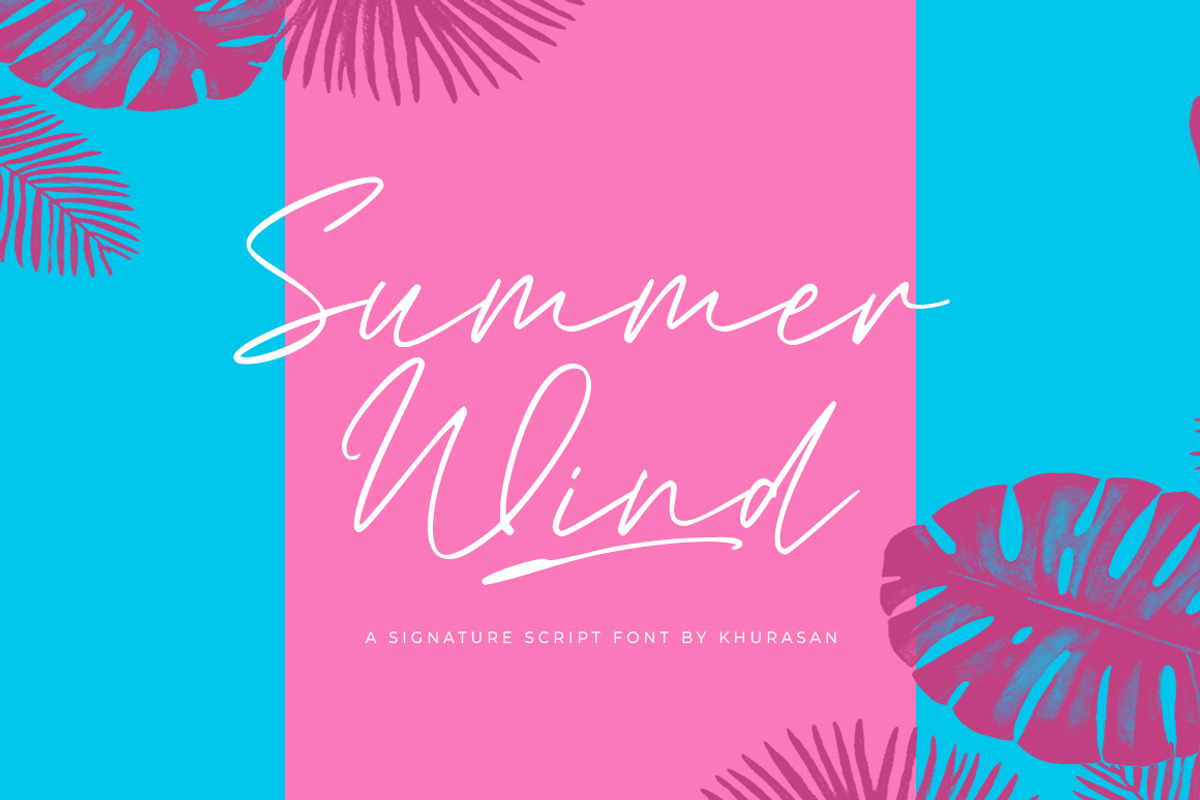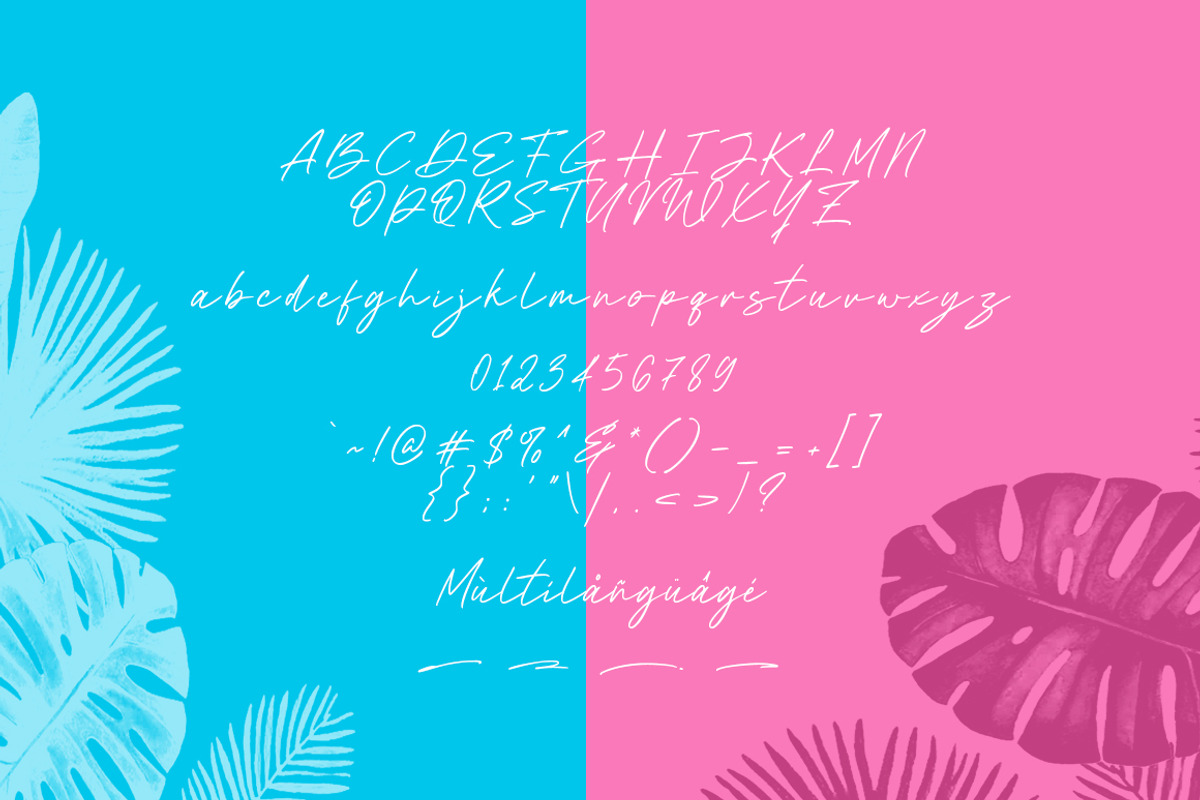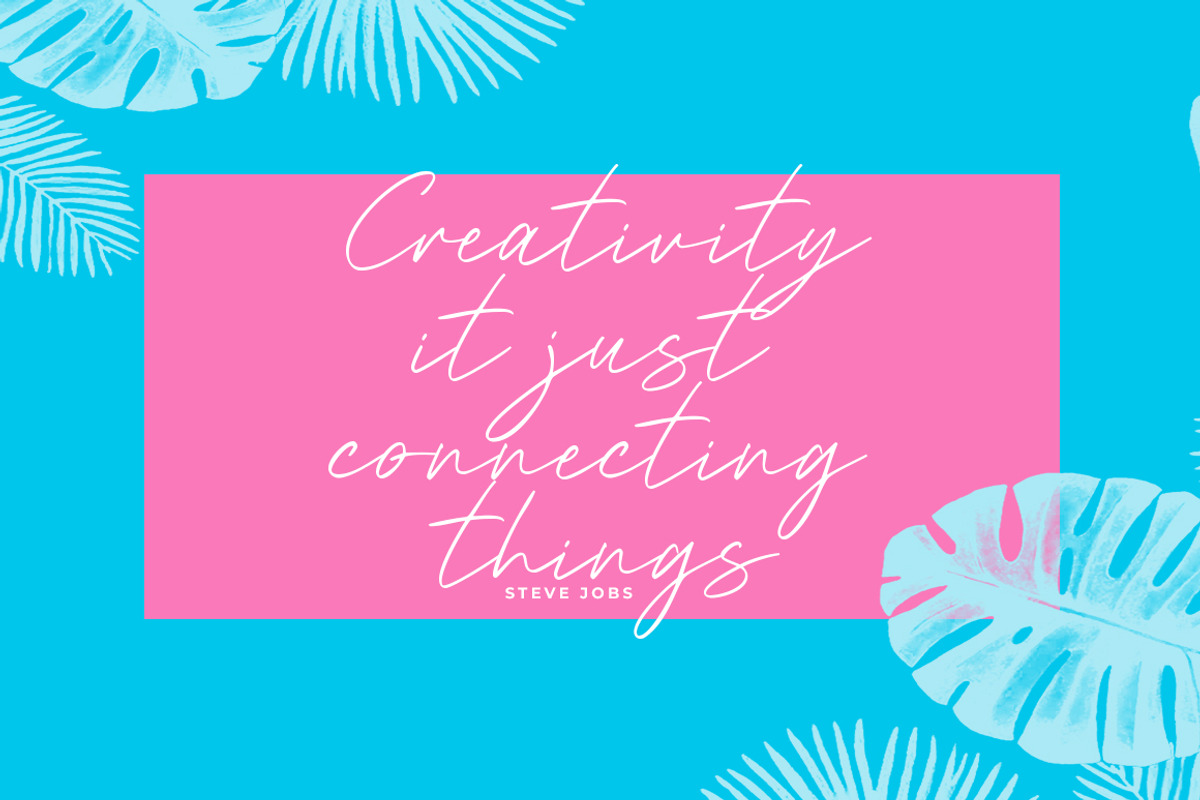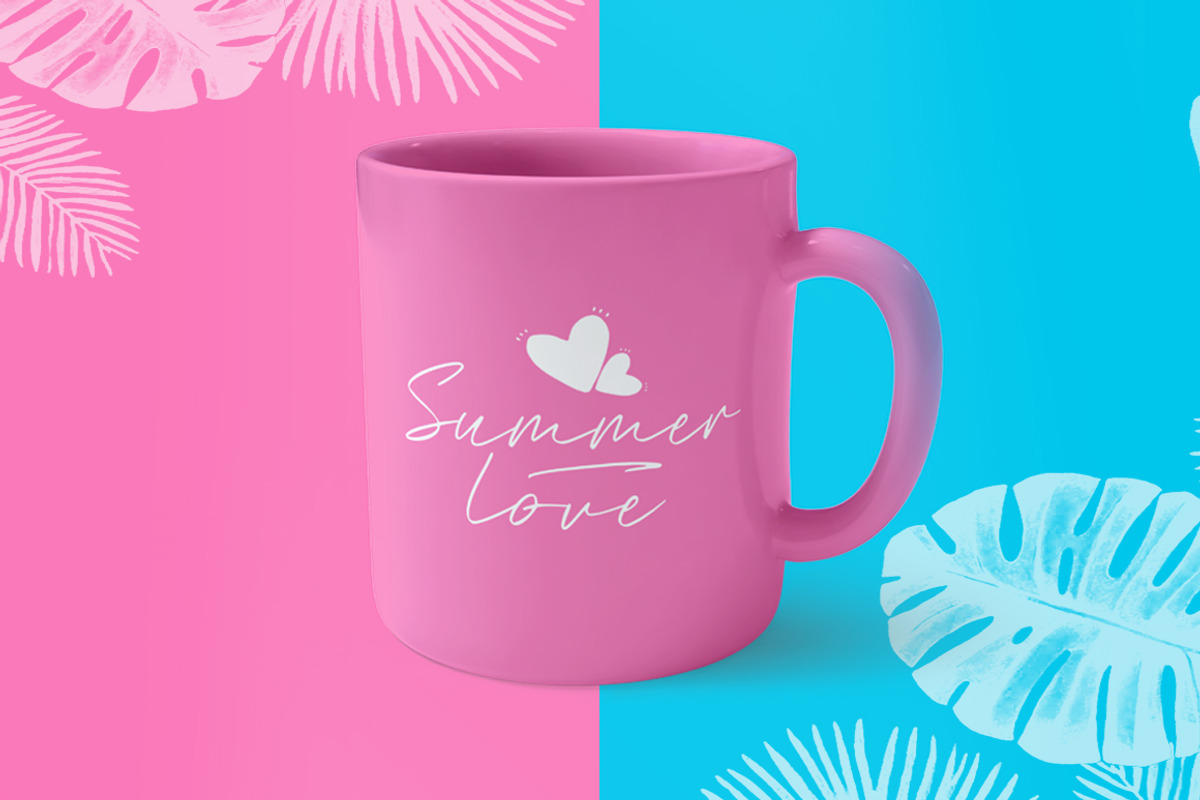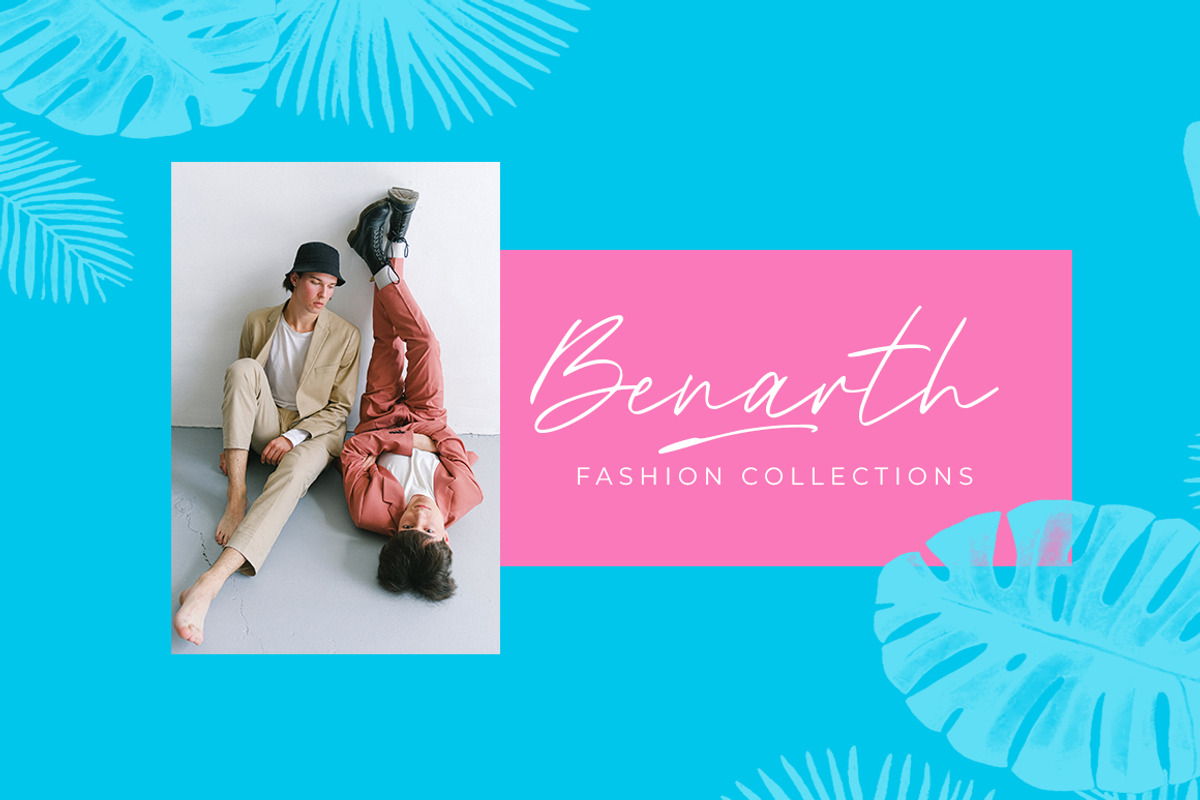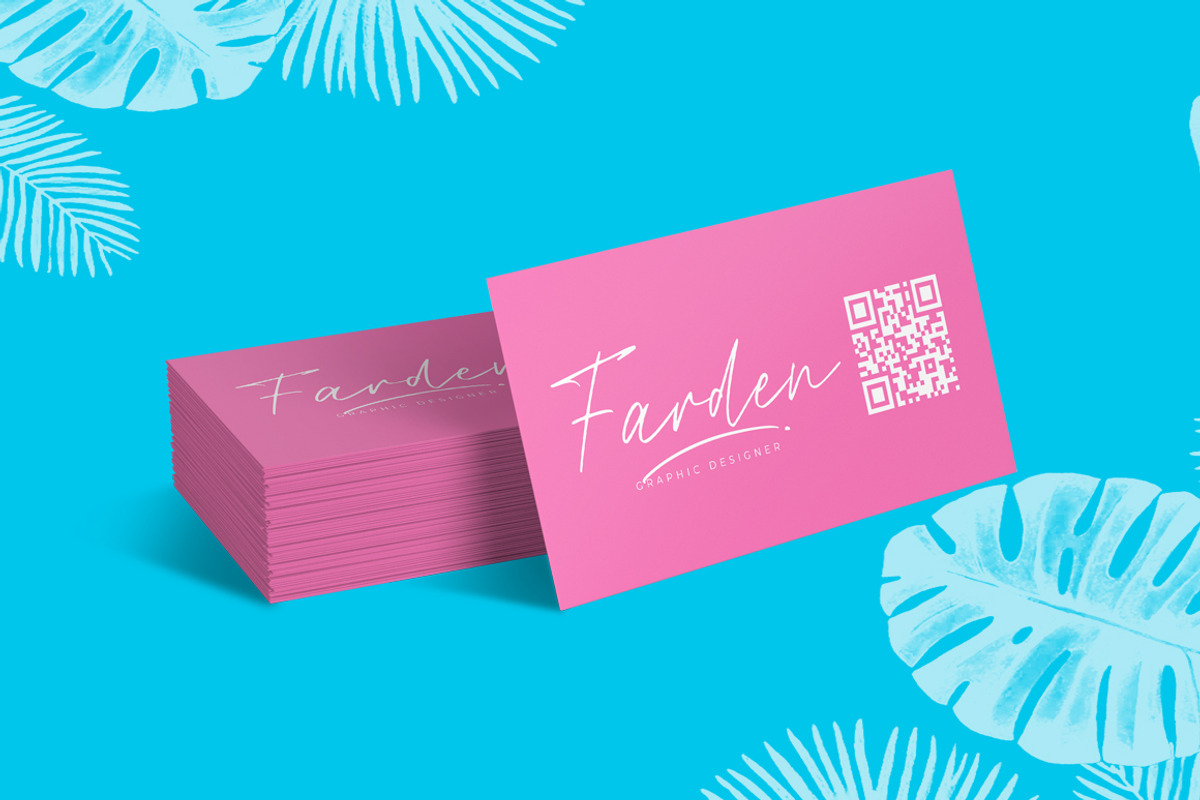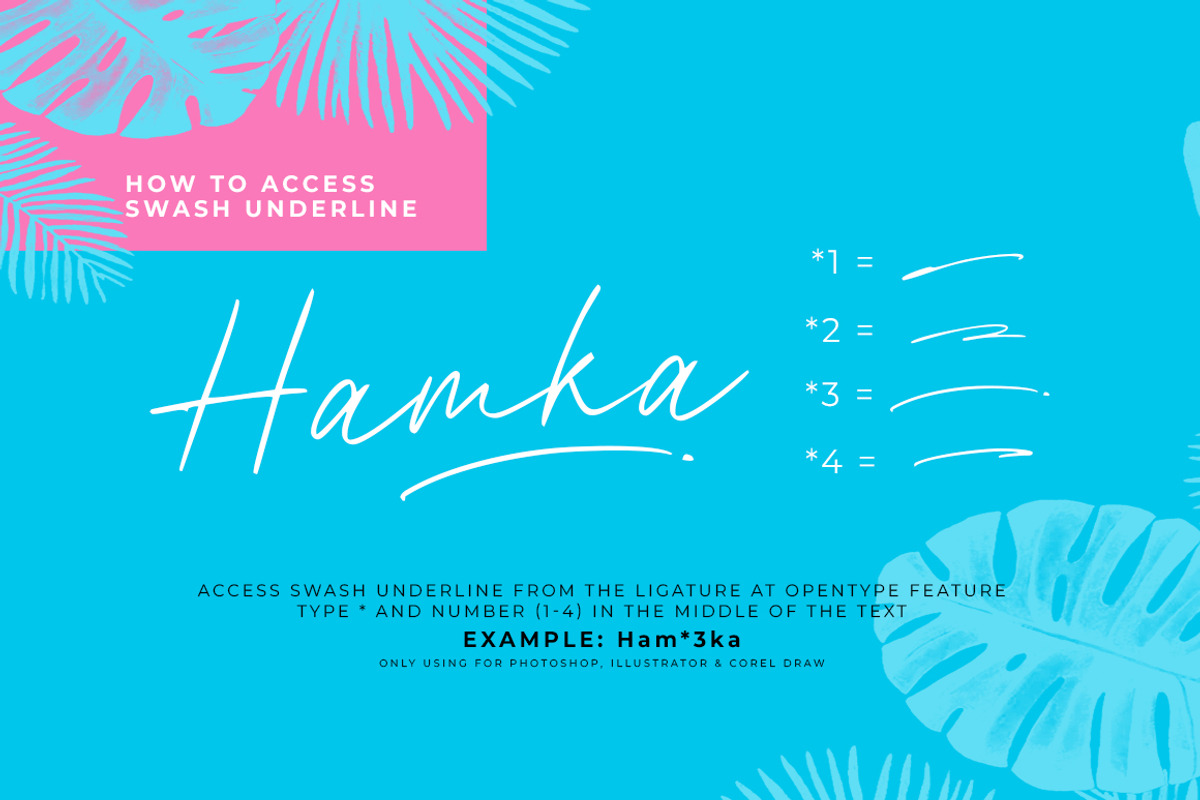
Summer Wind
Summer Wind is a modern script font. Summer Wind font suitable for logo, branding, greeting card, poster and any design that you create…!
Khurasan